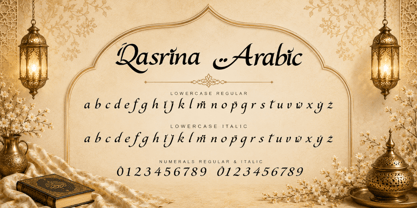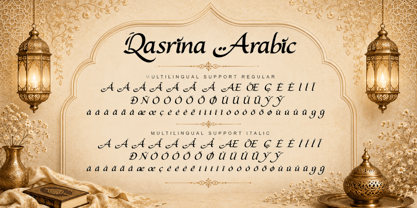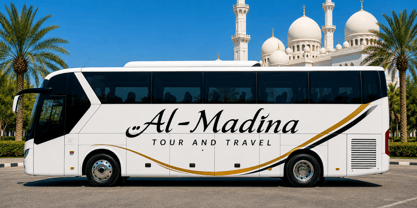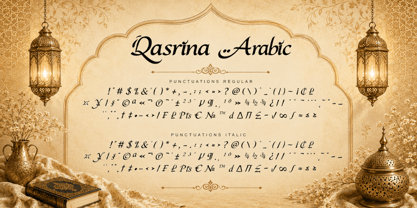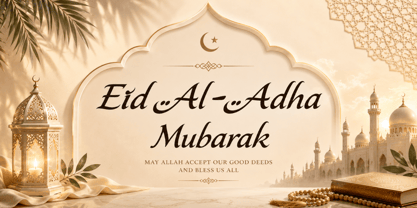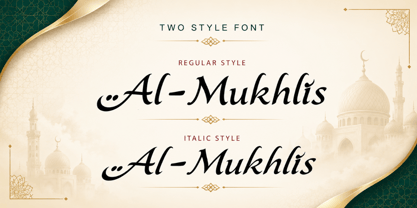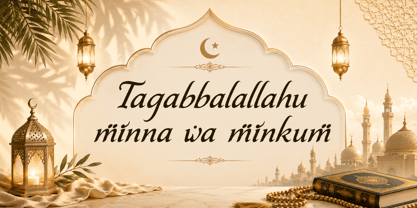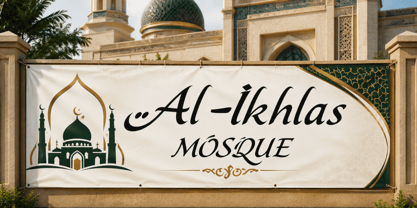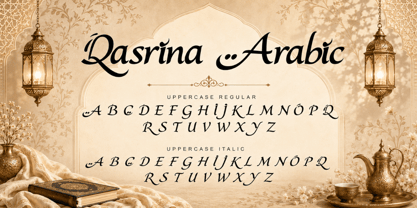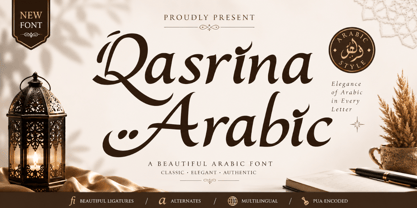
Qasrina Arabic
by Yoga Letter
The Qasrina Arabic Font Family was designed by Isroni Yoga Prasetya and published by Yoga Letter. Qasrina Arabic contains 2 styles and family package options. More about this family
"Qasrina Arabic" is an elegant and unique Arabic display font. It comes in two styles: regular and italic. It features uppercase and lowercase letters, numerals, punctuations, and multilingual support. It's perfect for Eid al-Adha and Eid al-Fitr greetings, invitations, banners, branding, Arabic text, logos, stickers, summer text, movie titles, music, and more.
Designers: Isroni Yoga Prasetya
Foundry: Yoga Letter